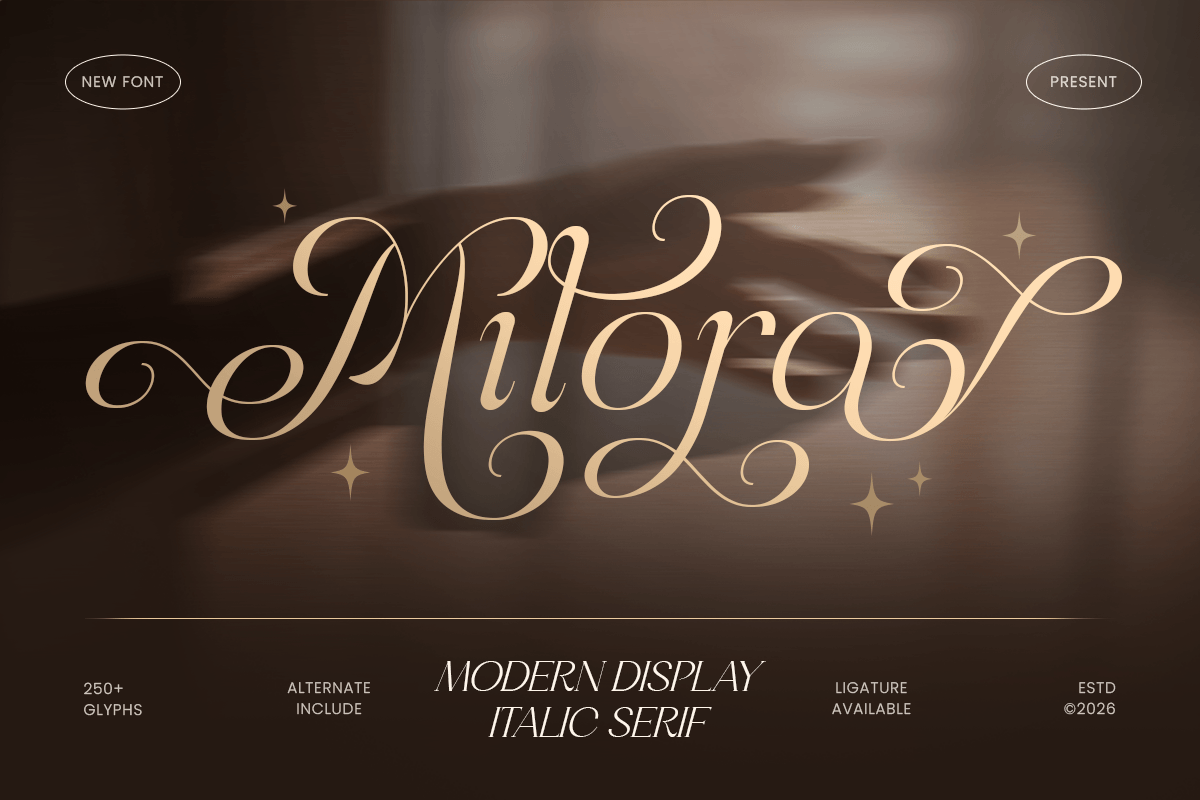
Milora
-Modern Editorial Serif Font
Milora - Modern Editorial Serif Font
Milora is a modern display italic serif font crafted for elegant branding, refined typography, and stylish visual identity. With graceful italic flow, balanced contrast, and sophisticated serif details, it brings a classy and premium look to every design.
Designed for logos, fashion branding, luxury packaging, editorial headlines, boutique identity, magazine layouts, and social media graphics, Milora blends modern serif elegance with expressive display character.
Perfect for designers who want an italic serif font with graceful movement, refined style, and memorable personality.
Milora Font Features
• Uppercase & lowercase
• Italic serif characters
• Alternates & ligatures
• Multilingual support
• Professional kerning
Milora Font Perfect For
Logo design, luxury branding, fashion identity, editorial headlines, packaging design, boutique designs, magazine covers, social media posts, product labels, and elegant typography projects.